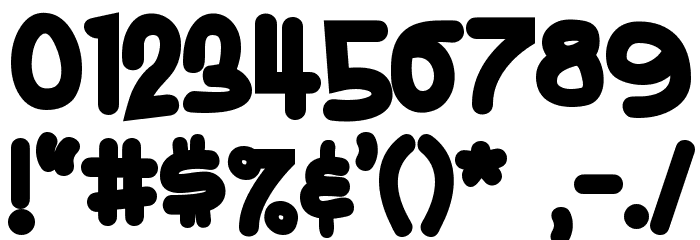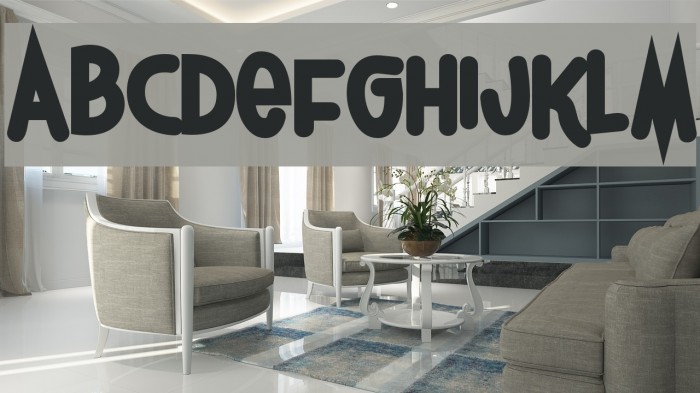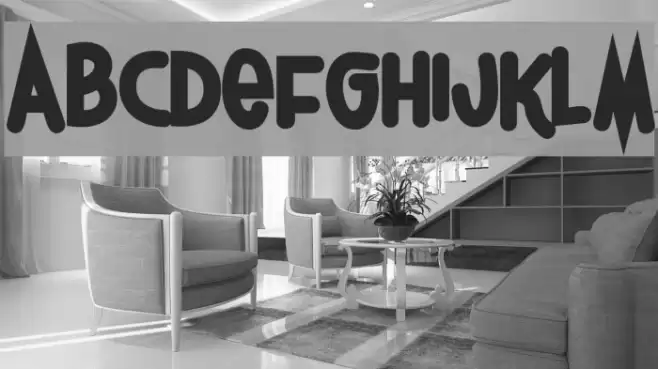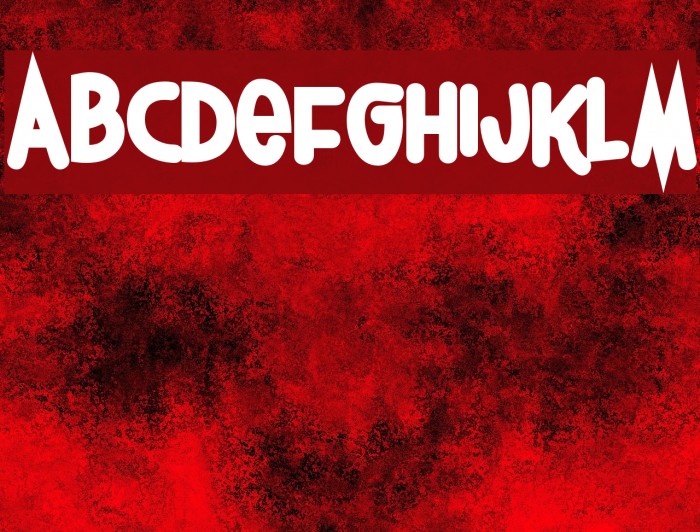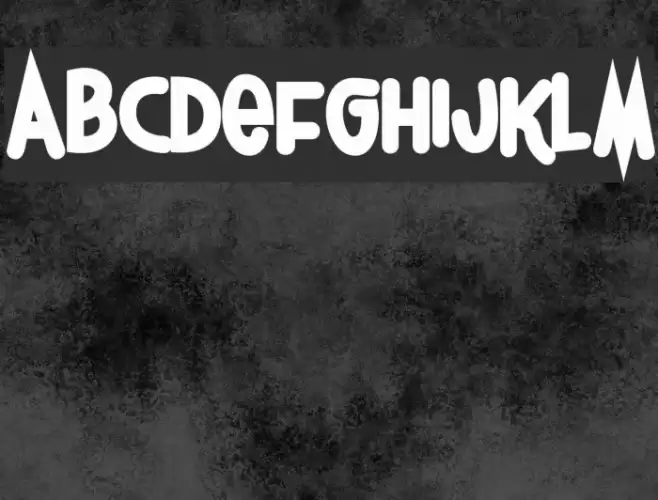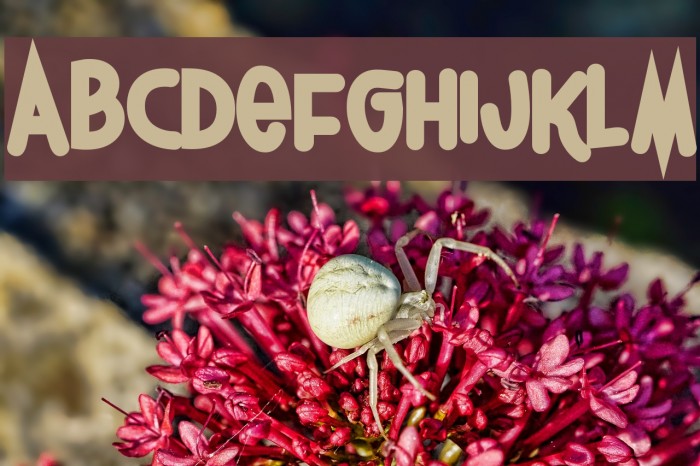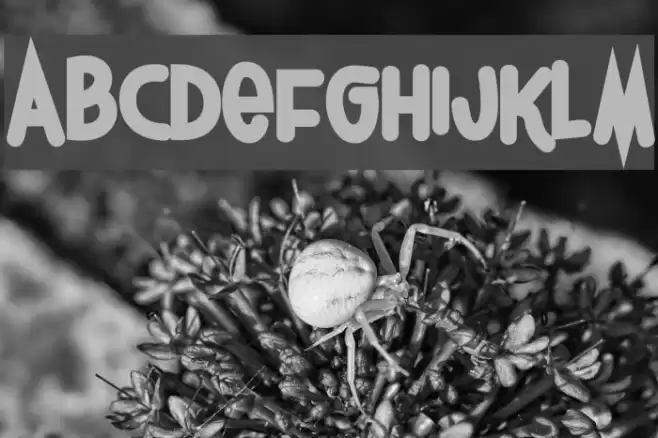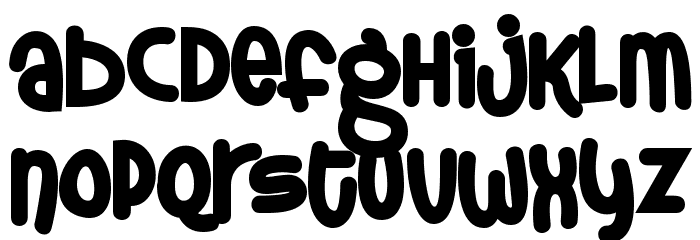
Thursdoo Font
Thursdoo Description
This font features a bold and playful design with thick, rounded strokes that give it a friendly and approachable appearance. The letters are uniformly bold, with a slightly condensed width that enhances its compact and cohesive look. The characters have a whimsical flair, particularly noticeable in the exaggerated curves and rounded terminals. This style is consistent across both uppercase and lowercase letters, as well as numerals and special characters. The font's unique personality makes it stand out, making it ideal for creative and informal applications.
| Categories | Comic |
| Width | Condensed |
| Overall Style | Playful, Whimsical |
| Proposed Projects | Ideal for children's books, playful branding, posters, and social media graphics. |